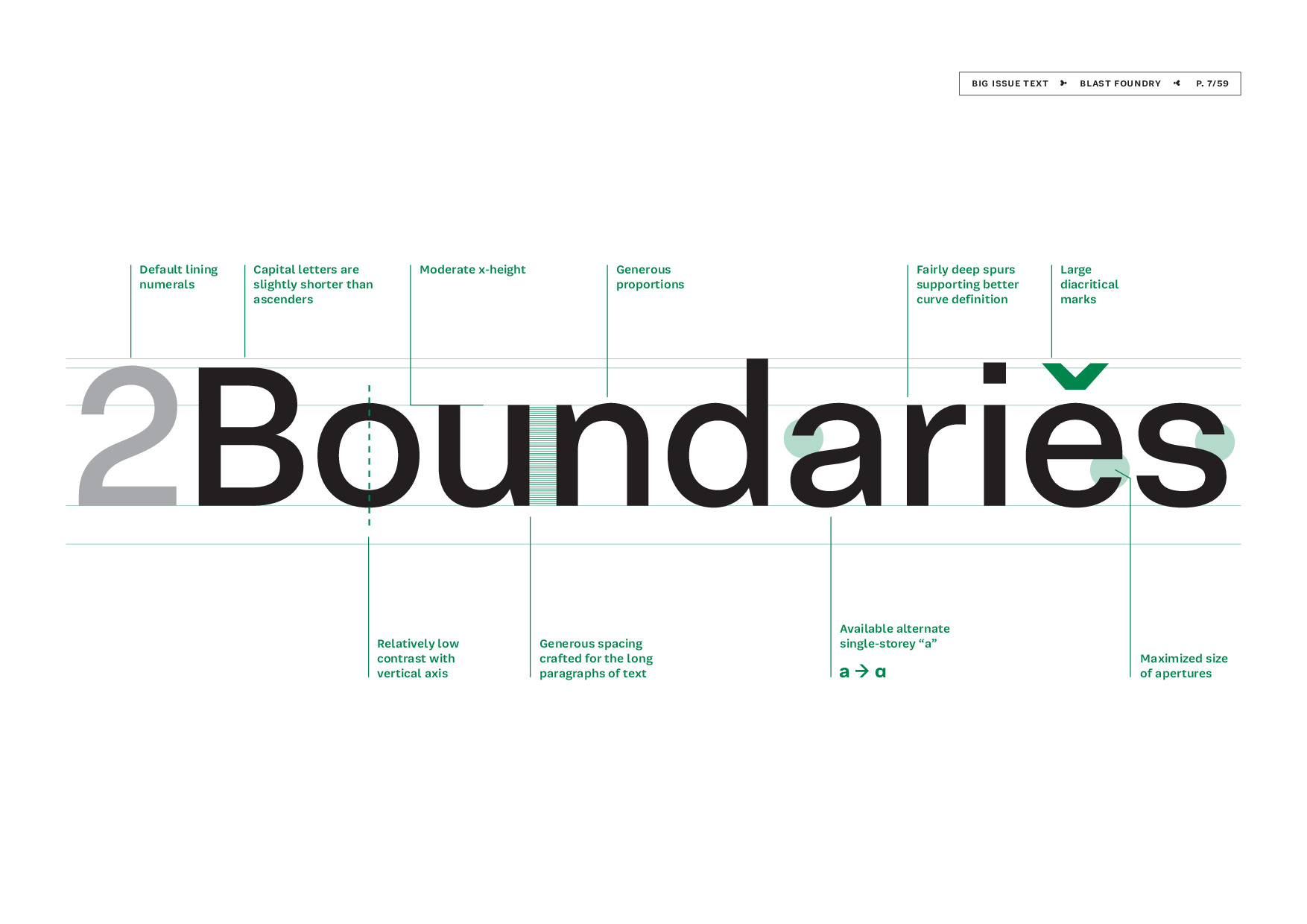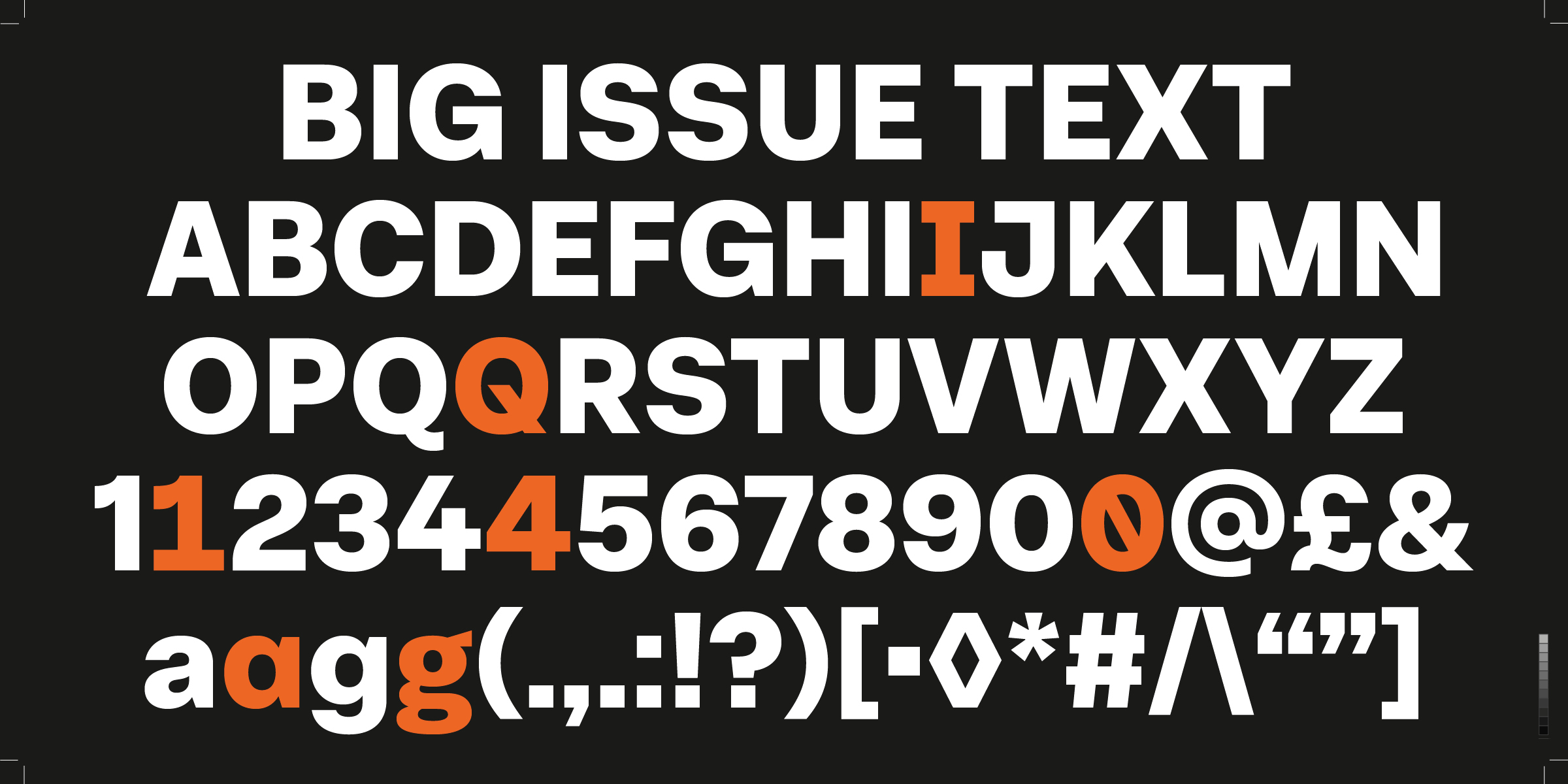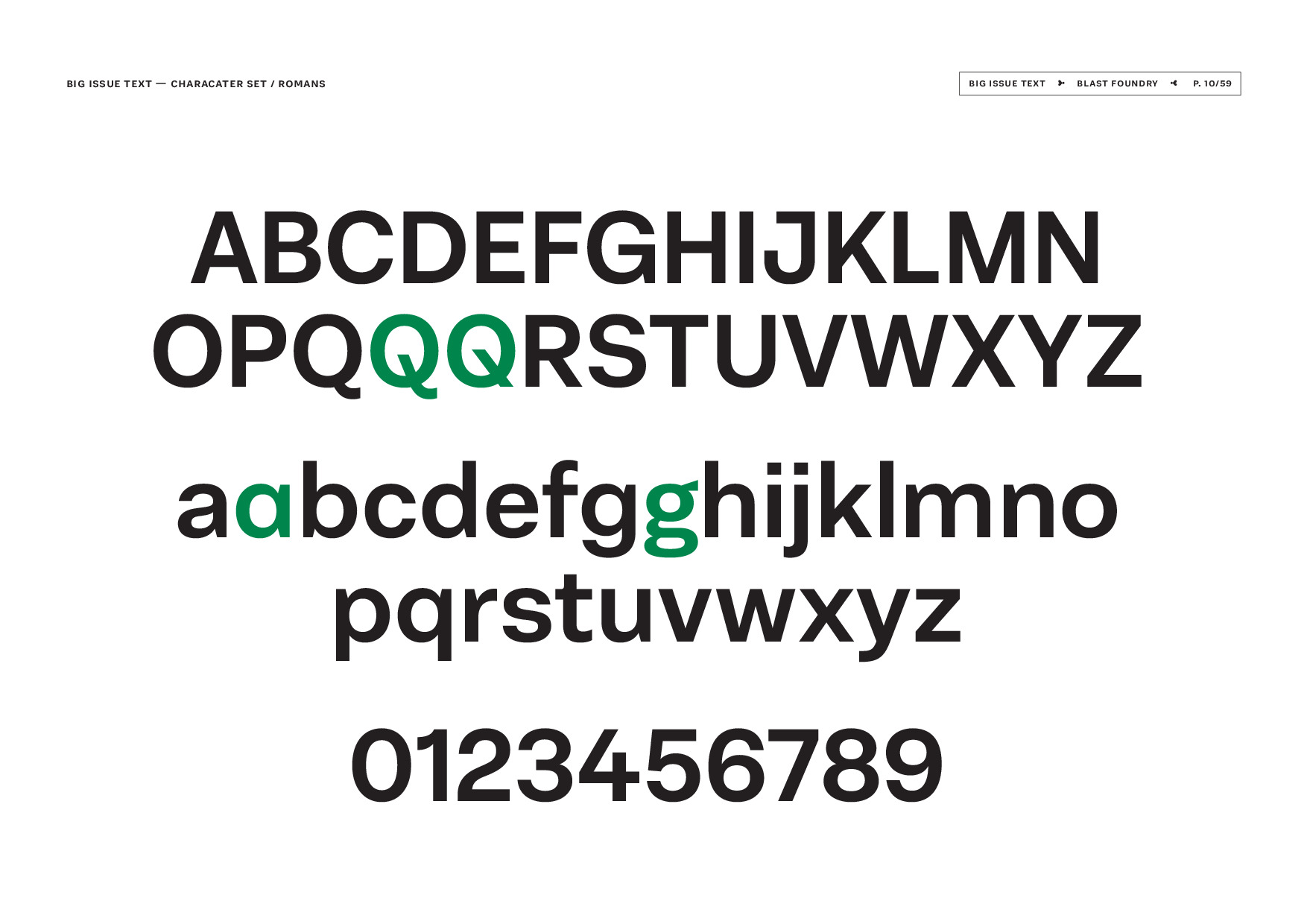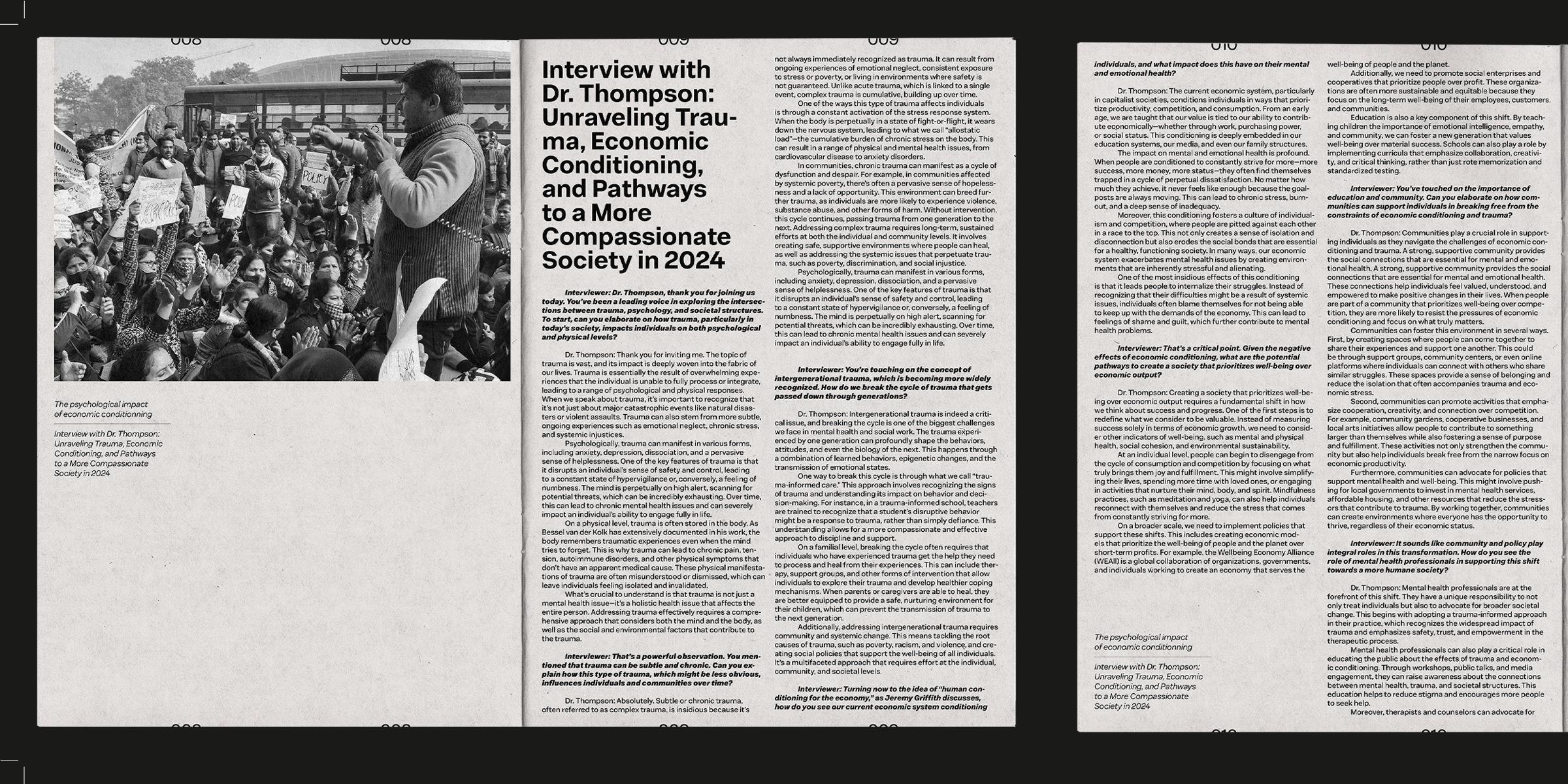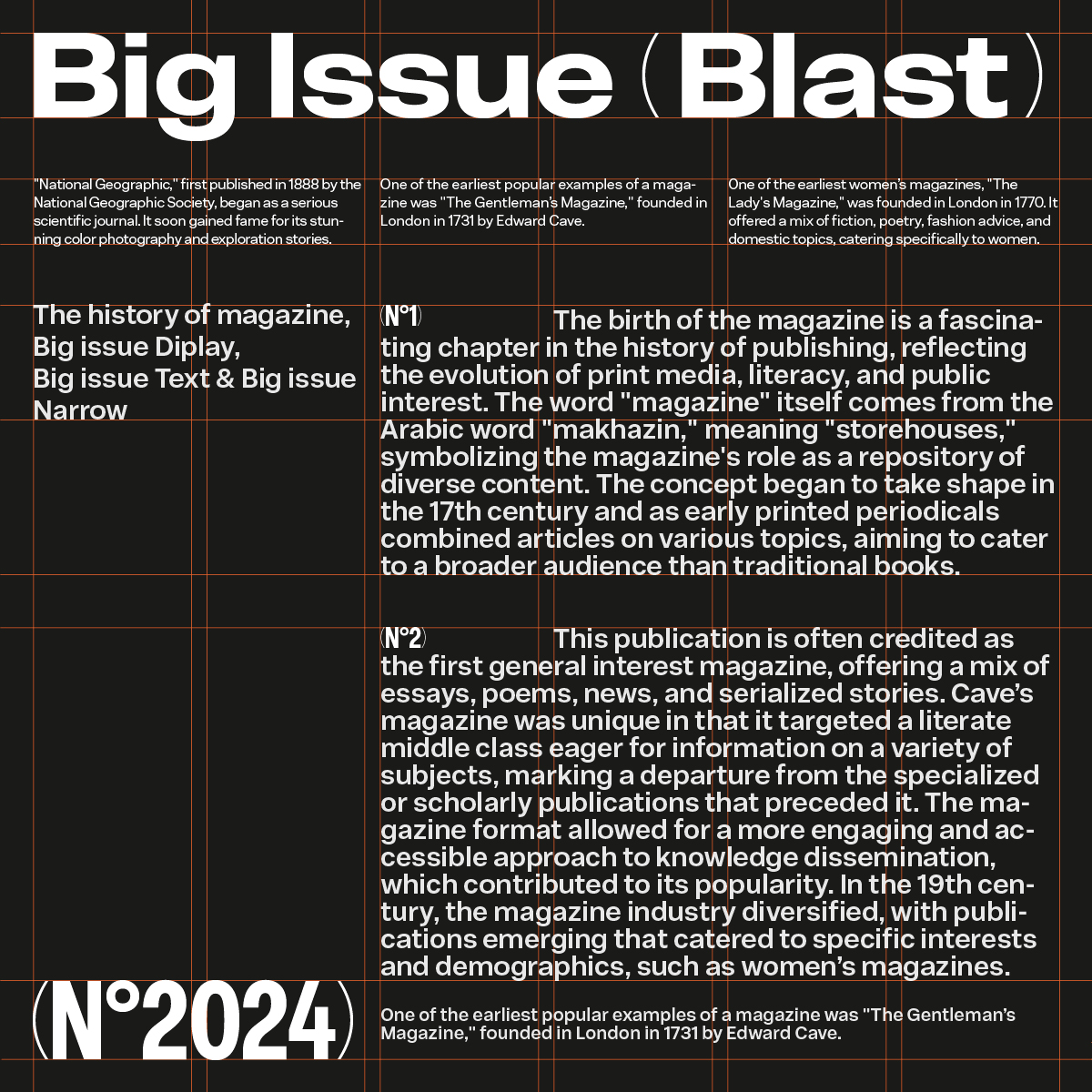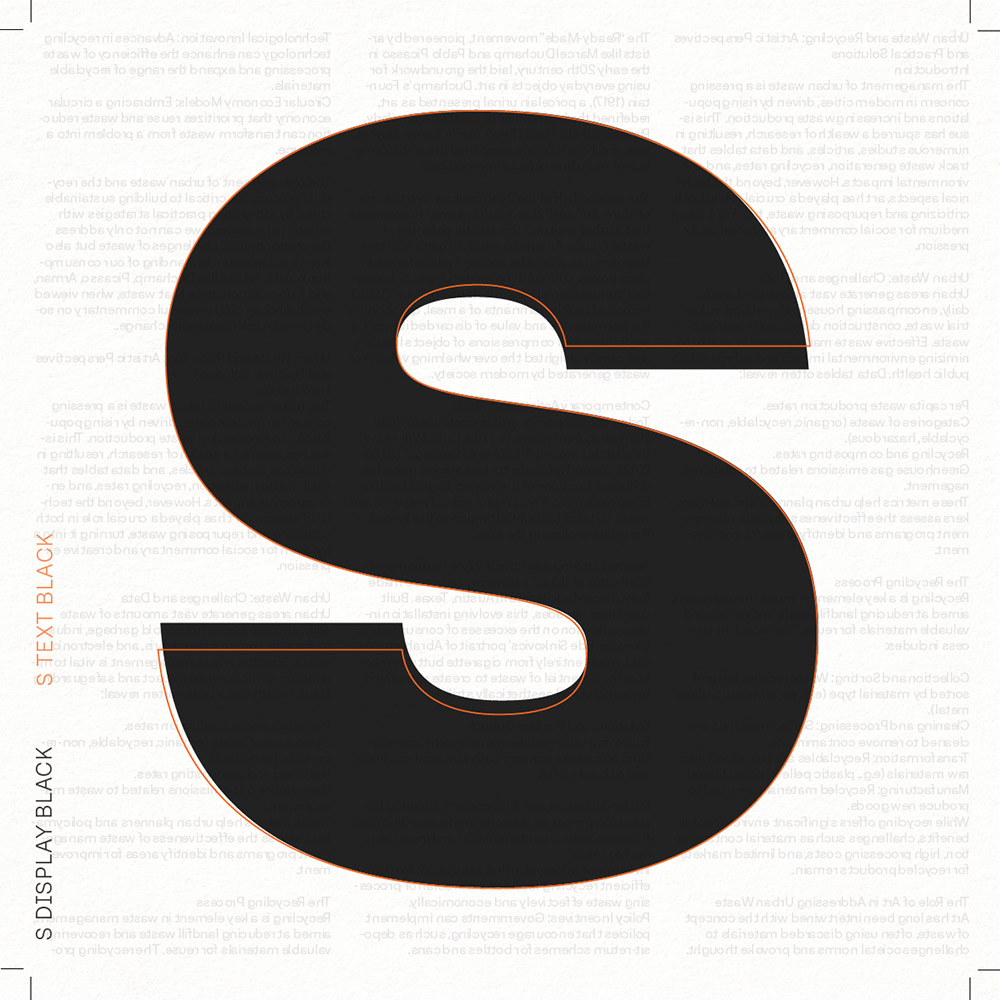
Big Issue Text
▶ Designed by Barbara Bigosińska, Diana Ovezea, 2024 ◀
Charitable grotesque for running text
Big Issue Text is designed for comfortable, extended reading, crafted with wider spacing and taller ascenders to enhance legibility in long-form editorial and digital content. It offers the same British grotesque roots as the rest of the family but is optimized for smaller sizes, ensuring clarity and ease of reading across all media.
Ideal for body text and text-heavy designs, Big Issue Text blends modern functionality with historical influence, making it perfect for publications, websites, and digital formats. As with the entire Big Issue family, 10% of all proceeds are donated to the Big Issue, continuing the project’s mission to support social change.